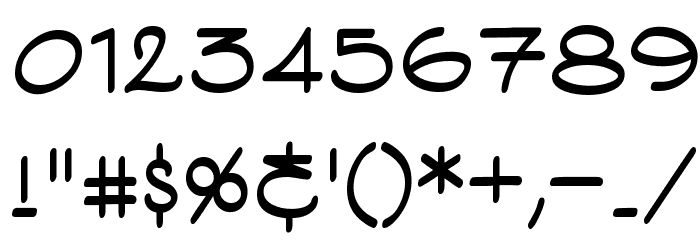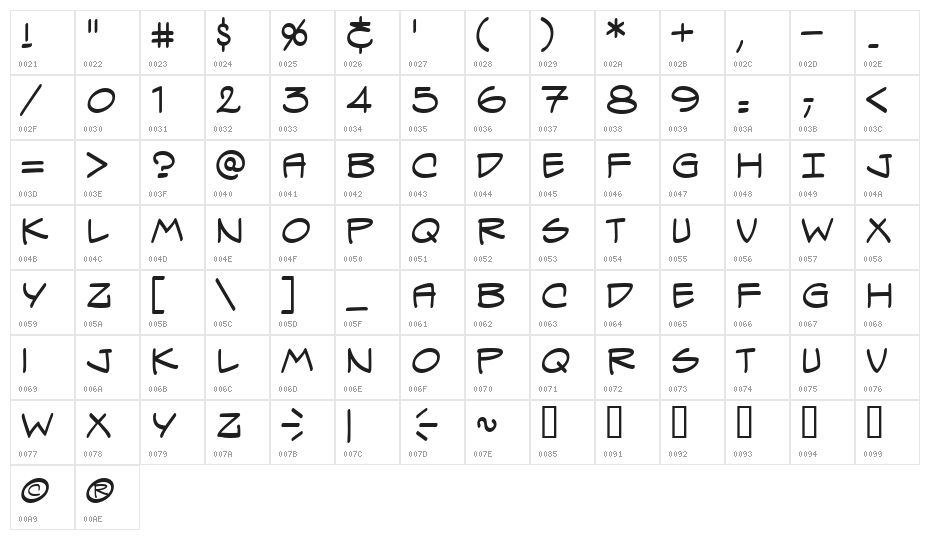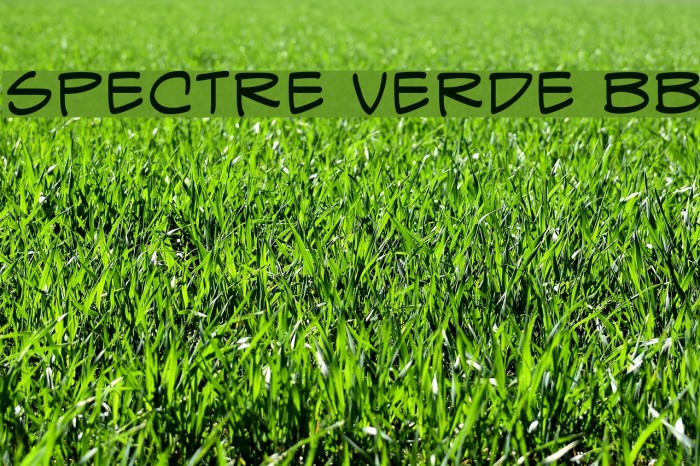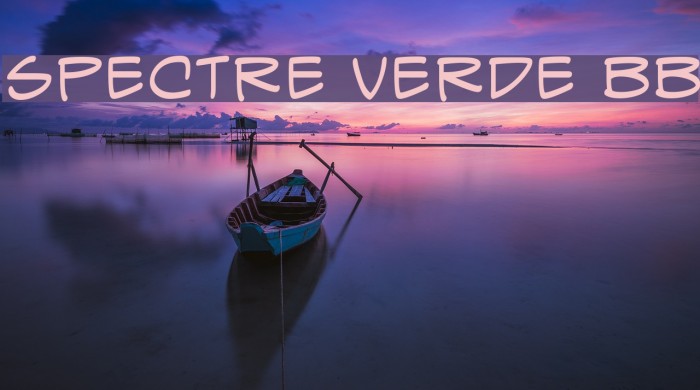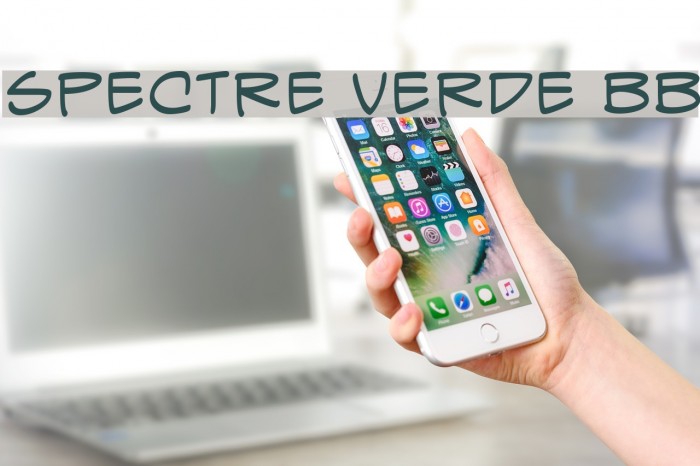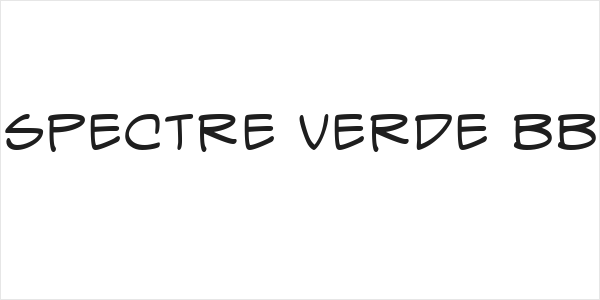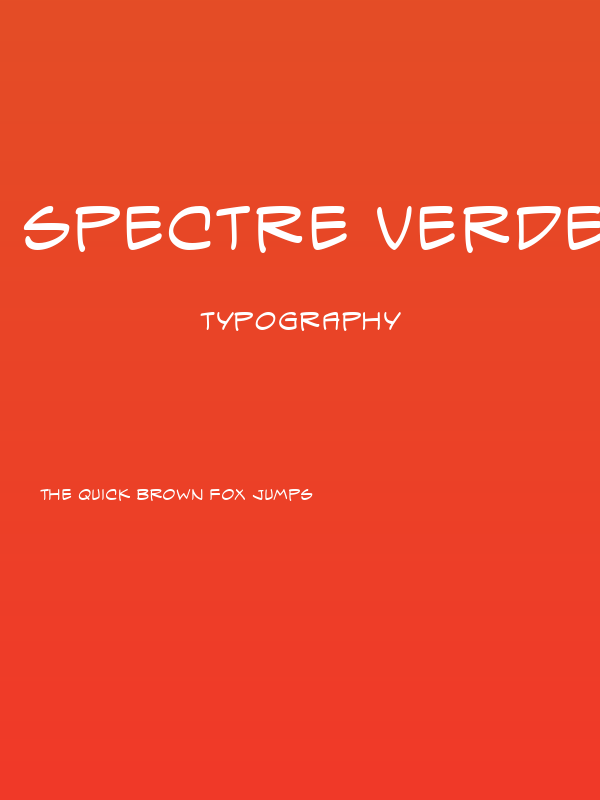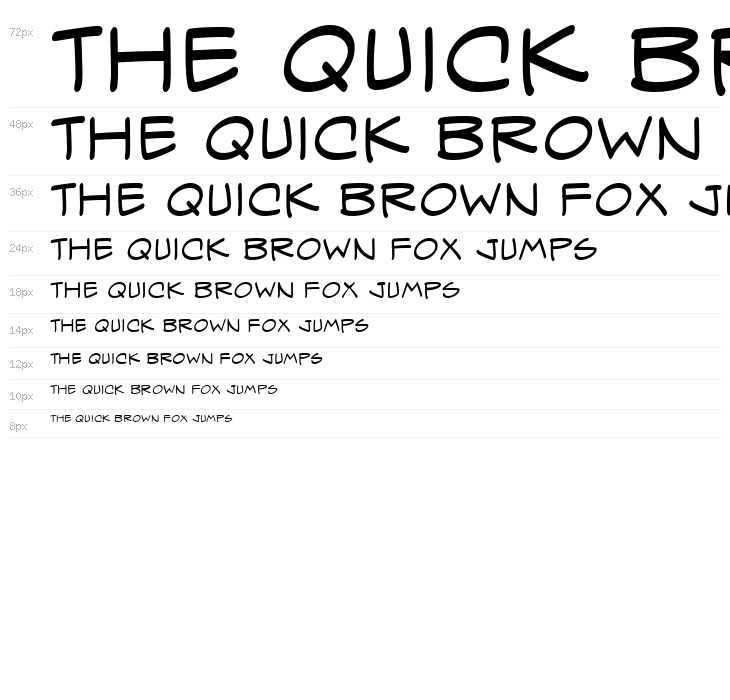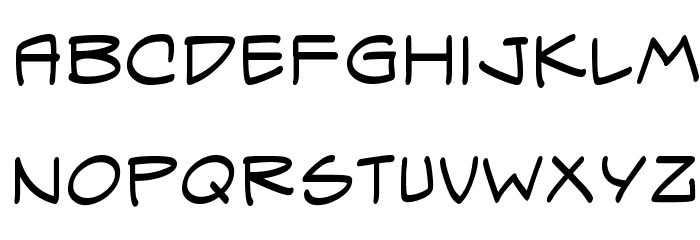
Spectre Verde BB Font
Spectre Verde BB Description
This font features a playful and informal style with rounded edges and a handwritten appearance. The letters are slightly slanted, giving a dynamic and energetic feel. The strokes are consistent in thickness, providing a uniform look across all characters. The font maintains a casual and approachable vibe, making it suitable for creative and fun projects. The numerals and special characters follow the same design principles, ensuring cohesion throughout the typeface.
| Proposed Projects | Ideal for children's books, playful branding, greeting cards, and informal event invitations. |